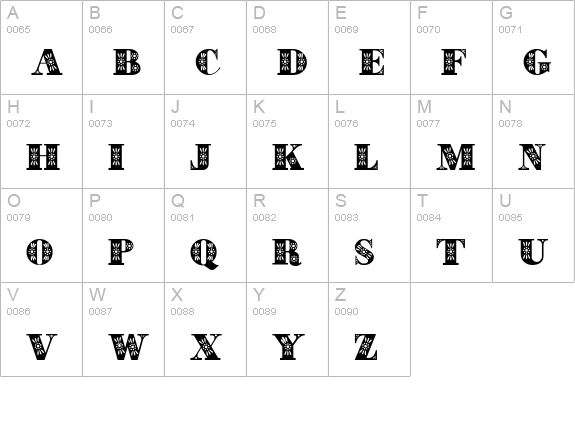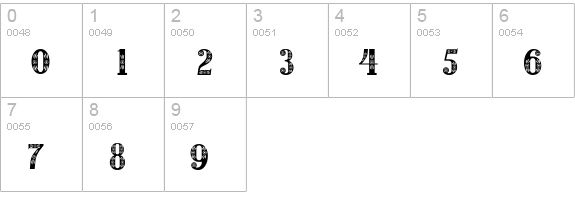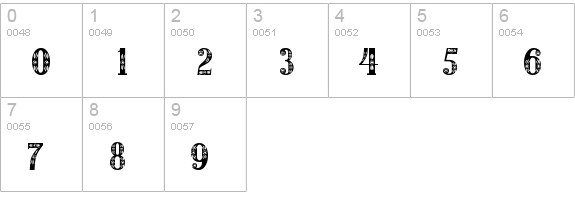
Decorative Font Details
Discover the exquisite charm of our Decorative font, a captivating typeface that adds a touch of elegance and sophistication to any design project. With its ornate details and stylish flourishes, this font is sure to make a statement and grab the attention of your audience. Best of all, this stunning Decorative font is available for free download exclusively at FontsMarket.com. Embrace the beauty of typography and elevate your creations with this unique and versatile typeface. Let your creativity shine with the free Decorative font from FontsMarket.com!